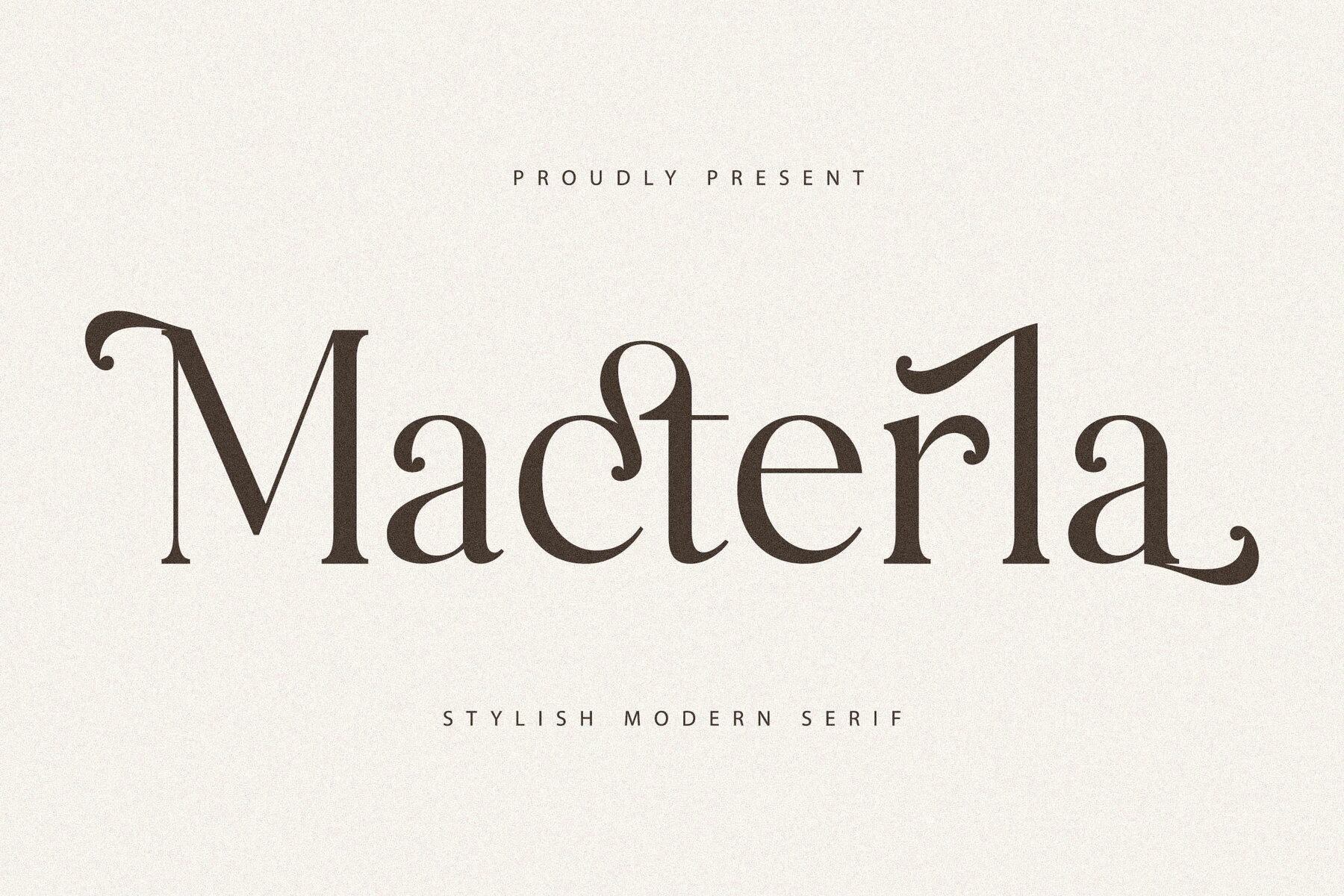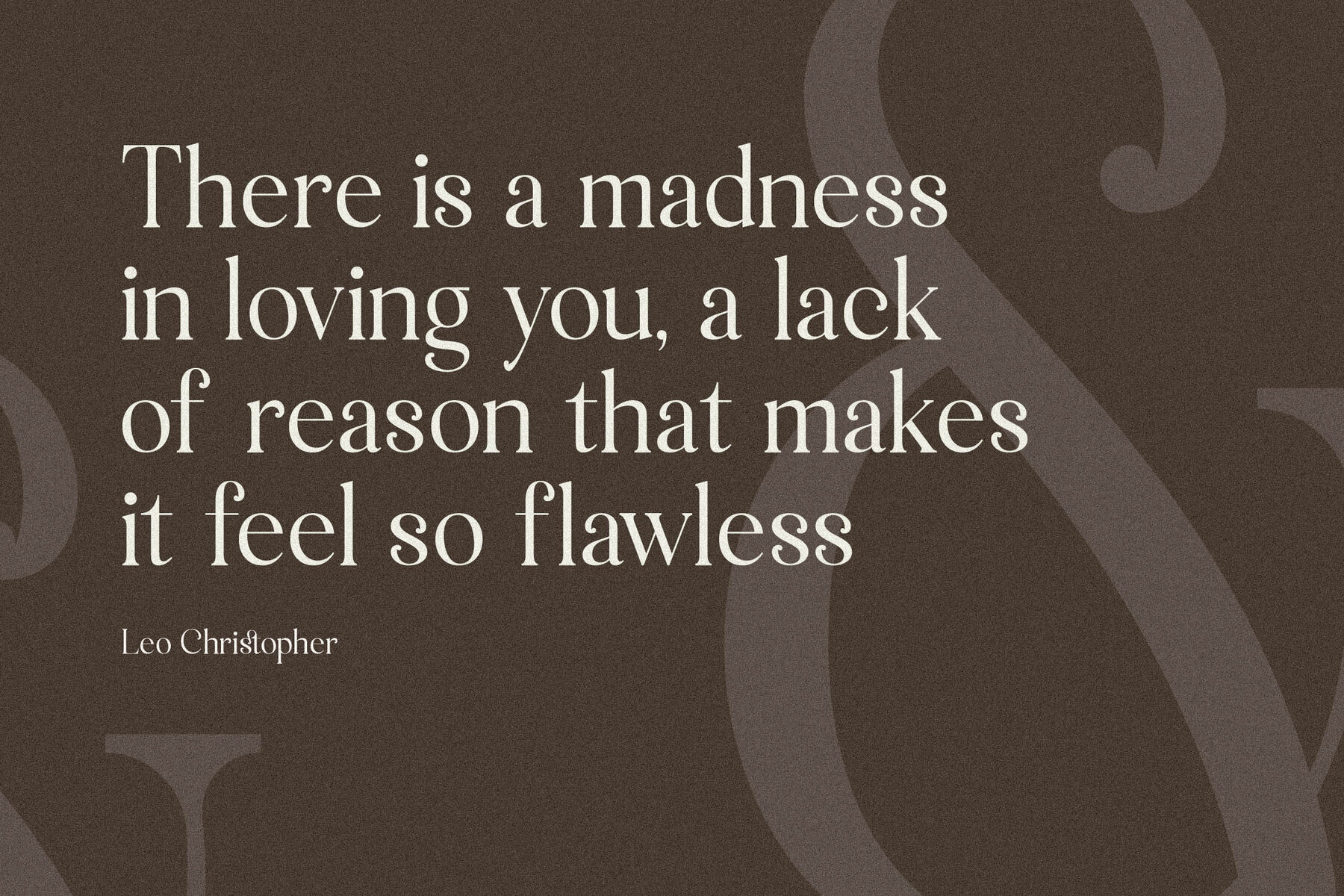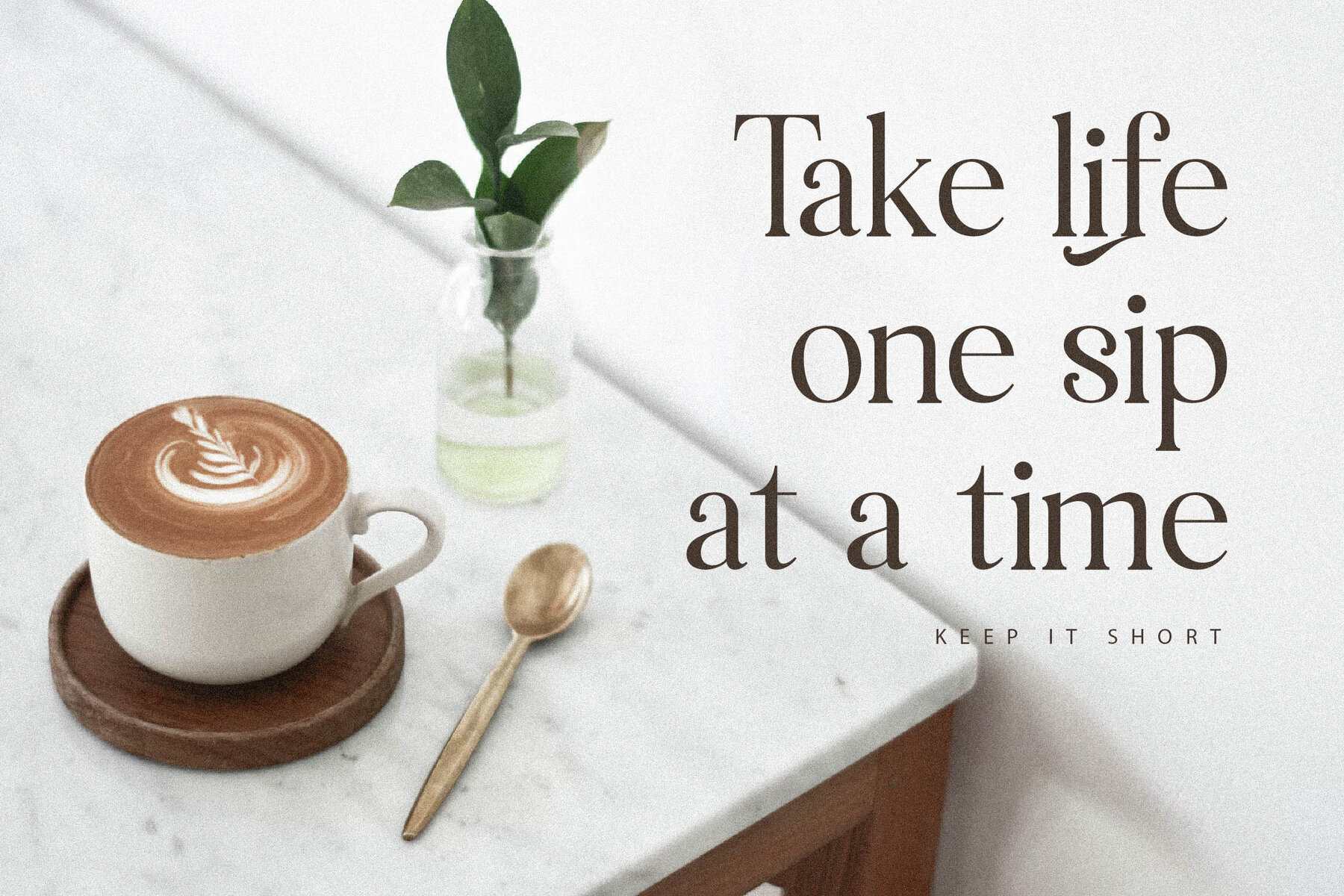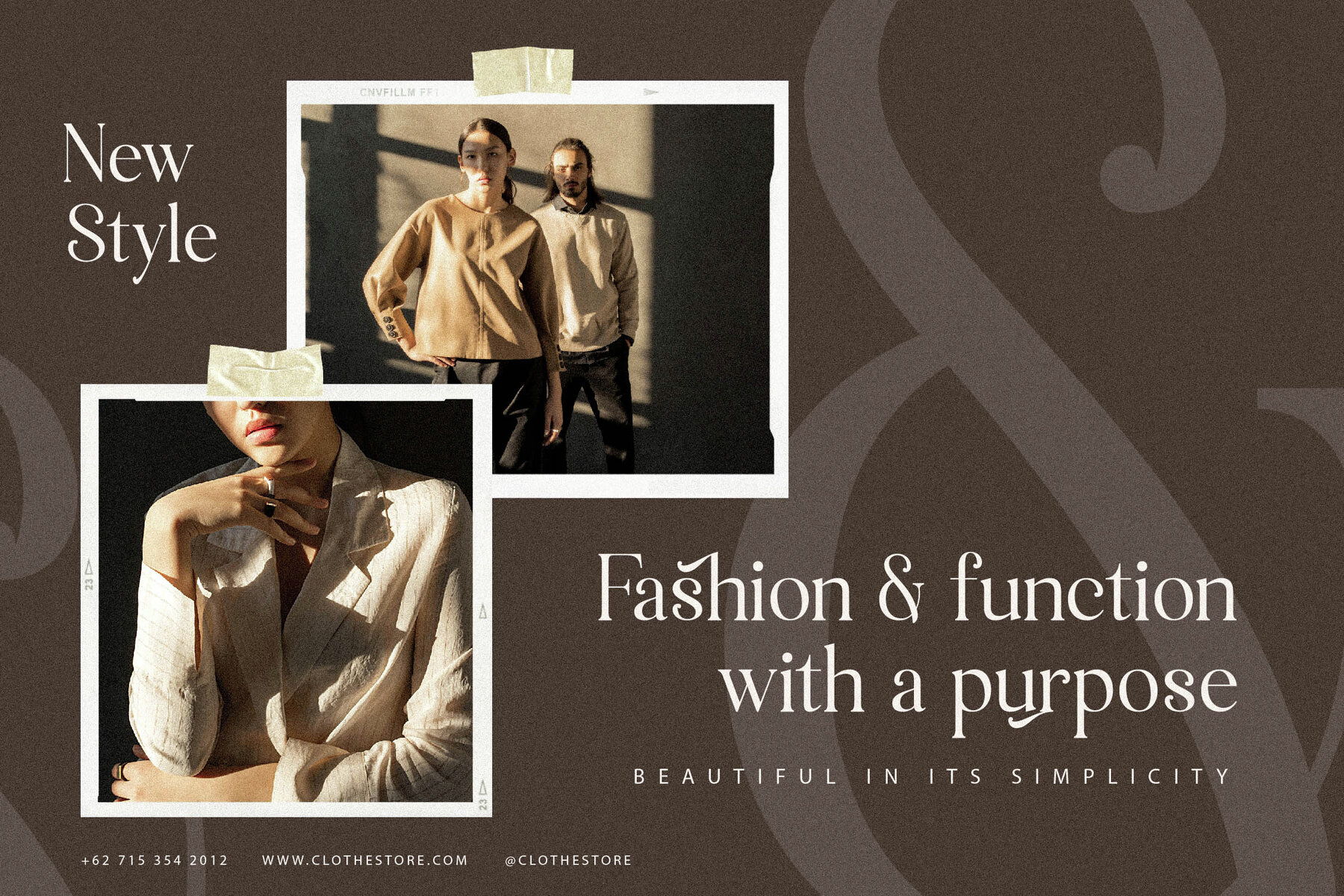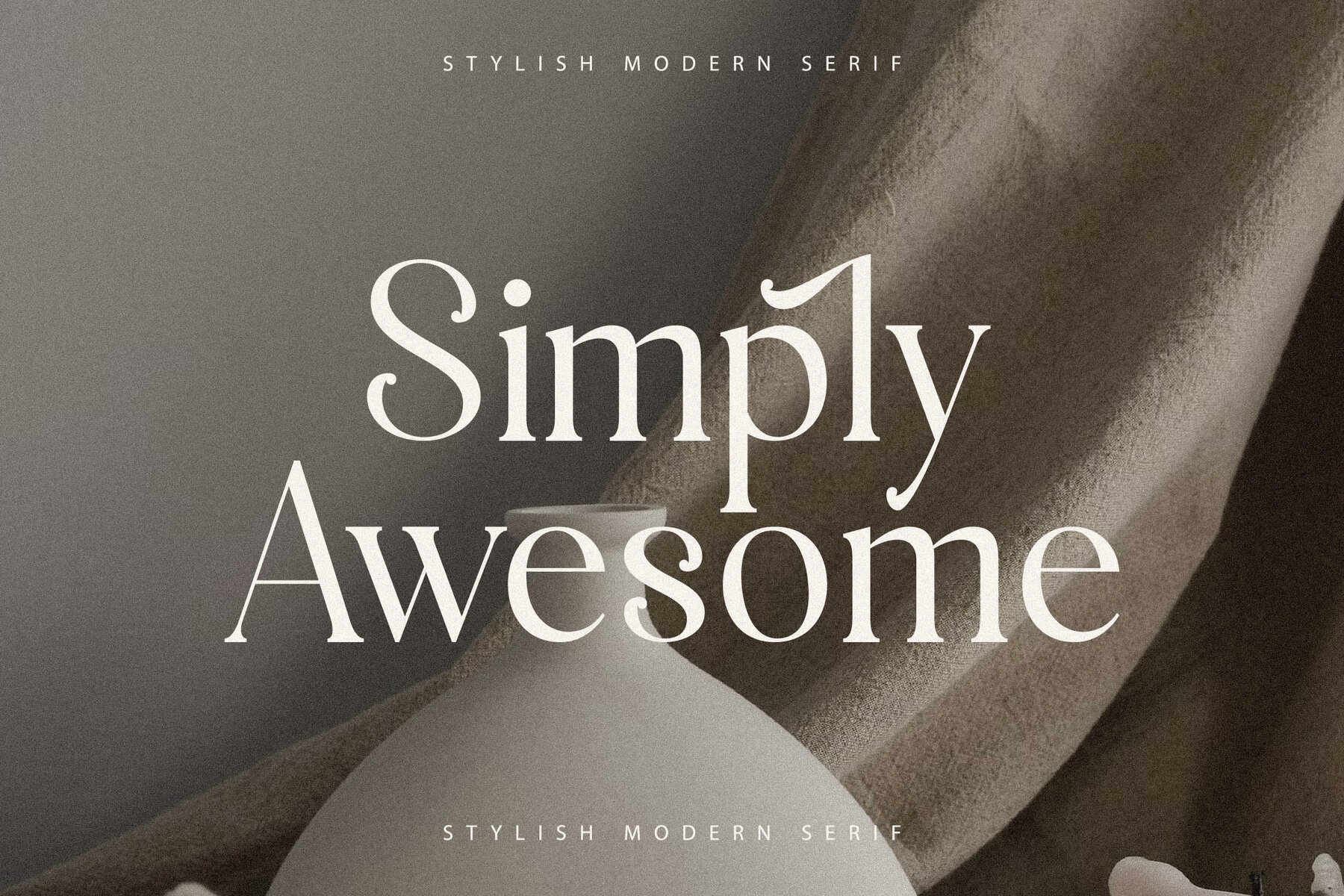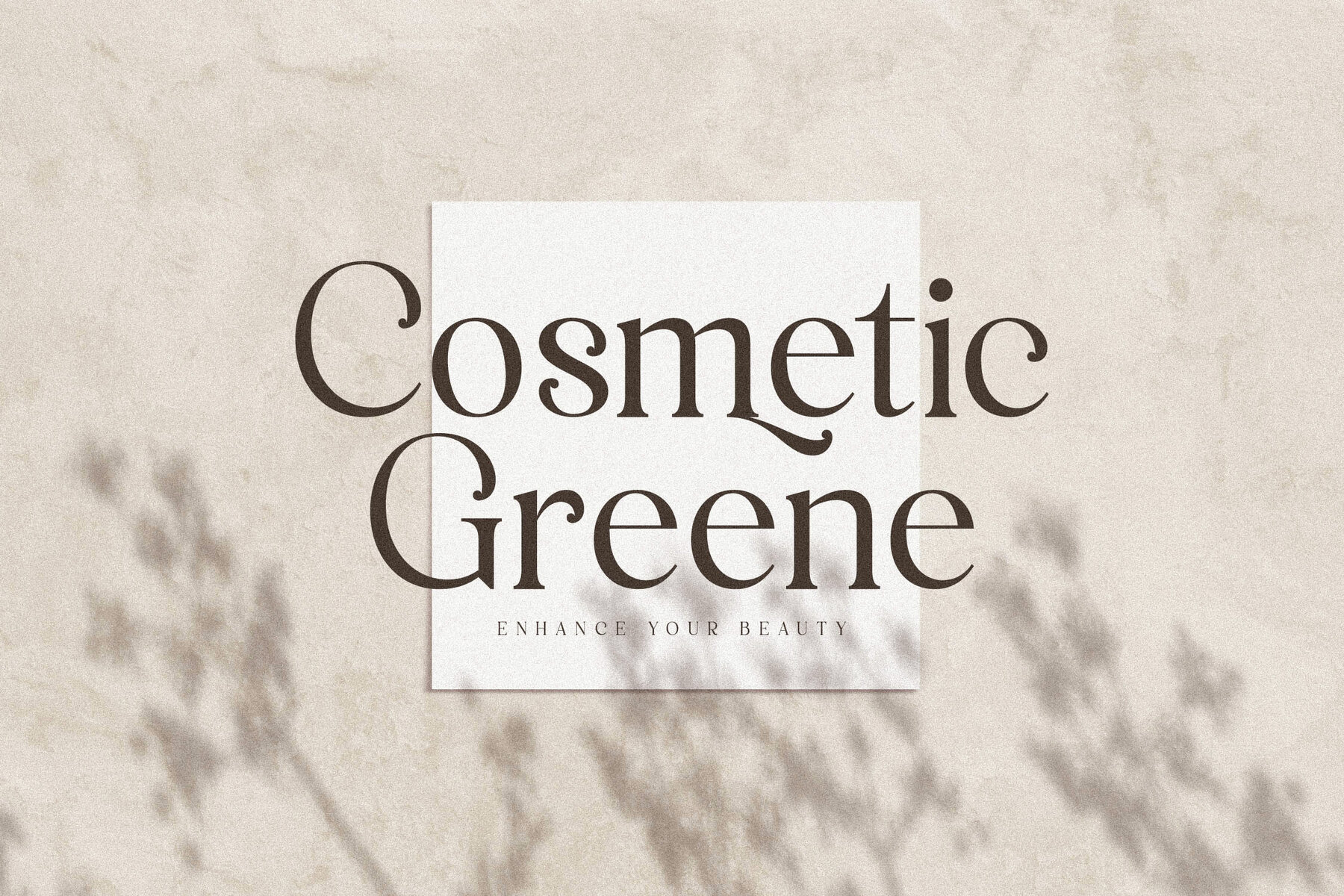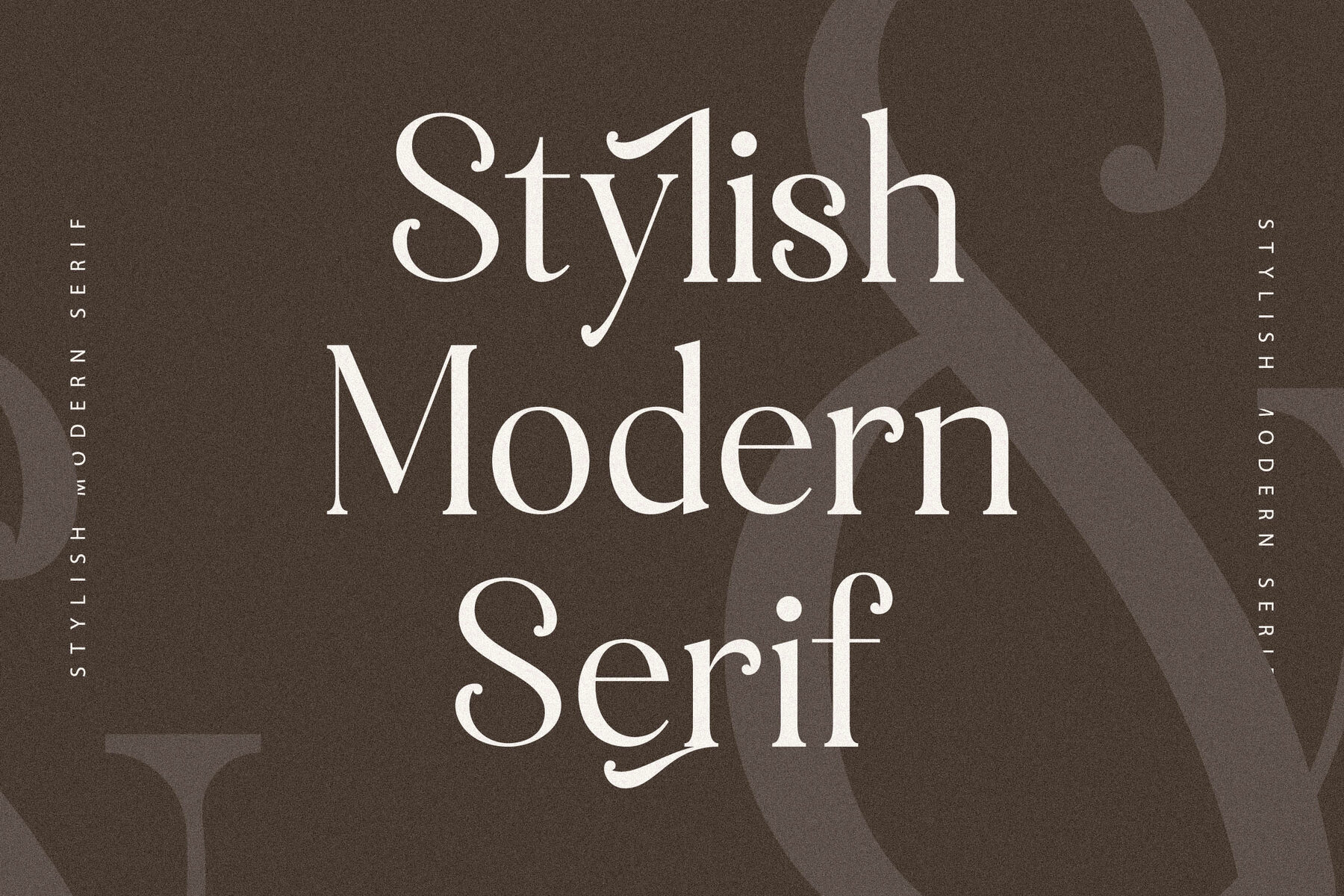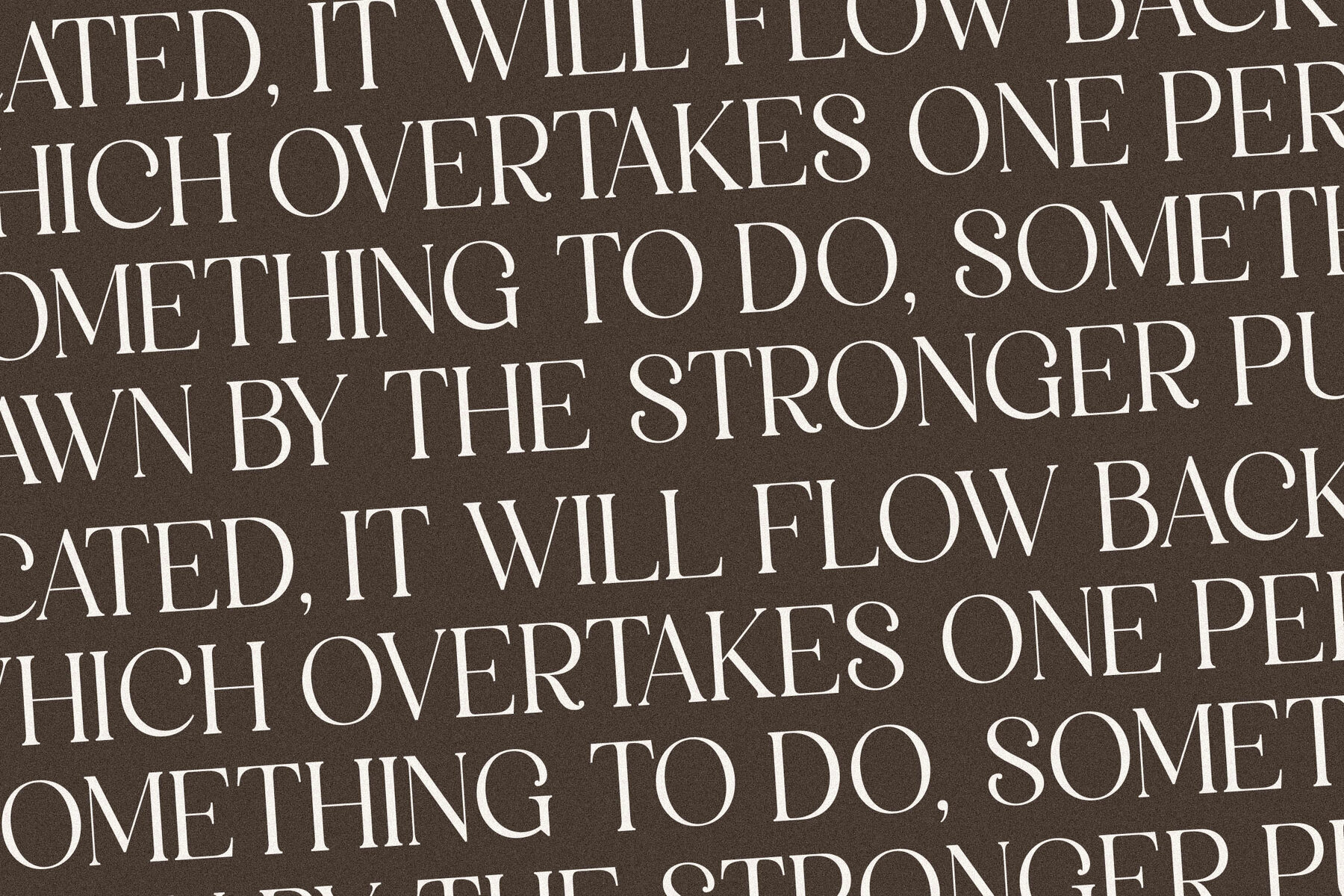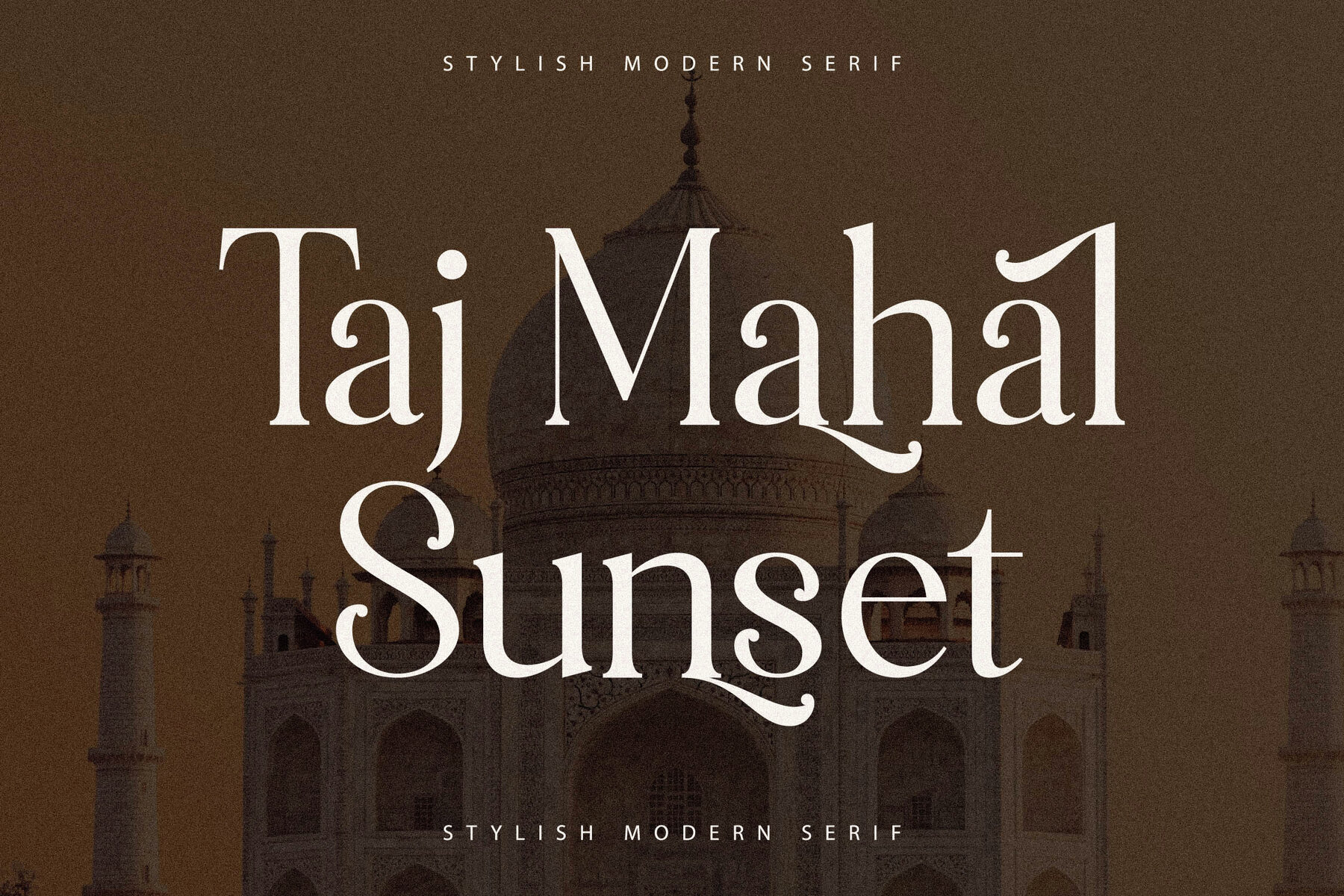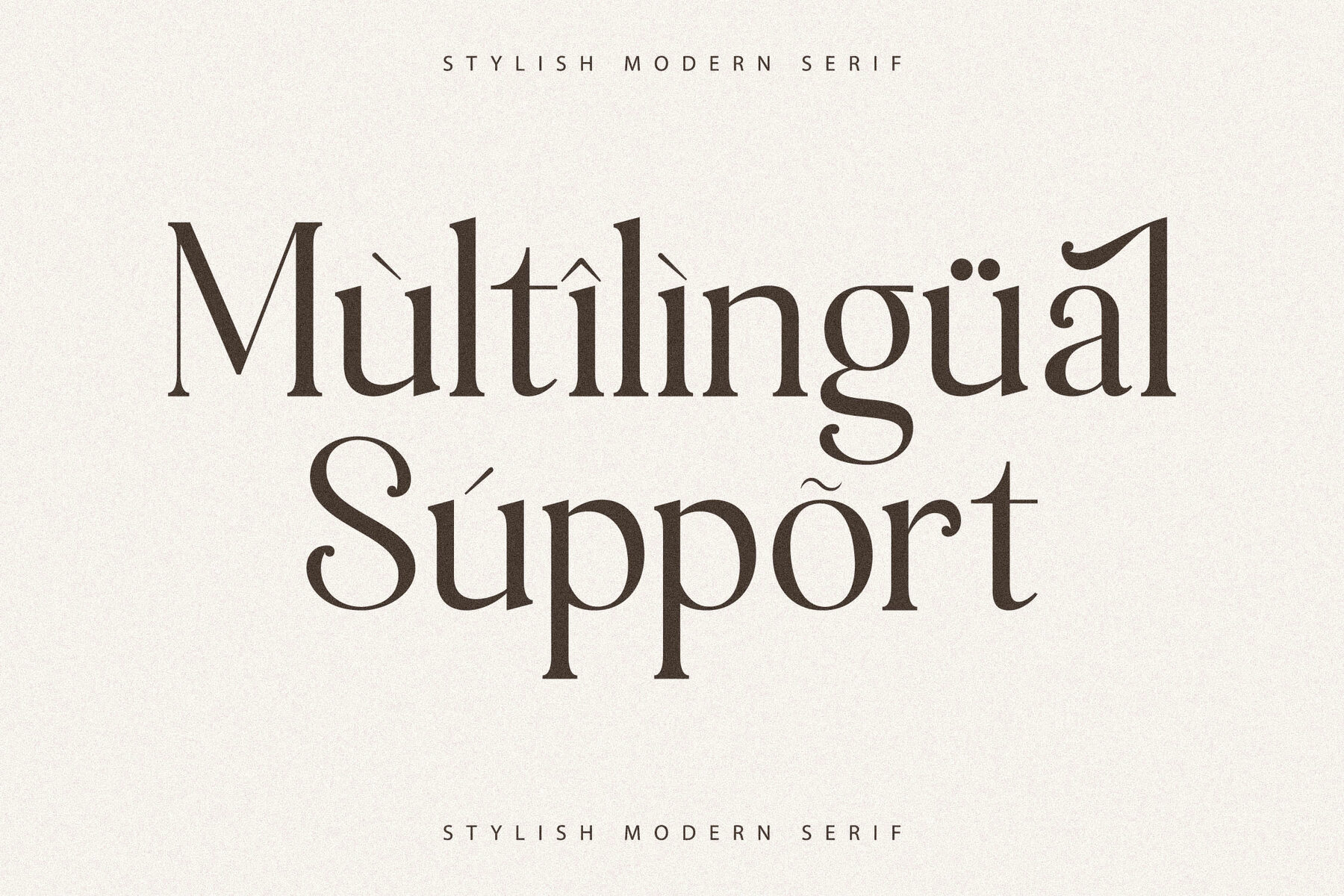
Macterla Font
Macterla brings together modern sophistication and classic elegance in a distinctive serif design. Its refined letterforms give each word a unique presence, making it an excellent choice for projects that demand style and character. The typeface suits luxury logos, high-end branding, fashion publications, book or film titles, magazine layouts, apparel, and expressive quotes. Macterla stands out for its versatility and clean structure, adding a touch of sophistication to any project without compromising readability. Its robust feature set ensures it adapts to a wide array of professional design needs.Macterla Serif Typeface